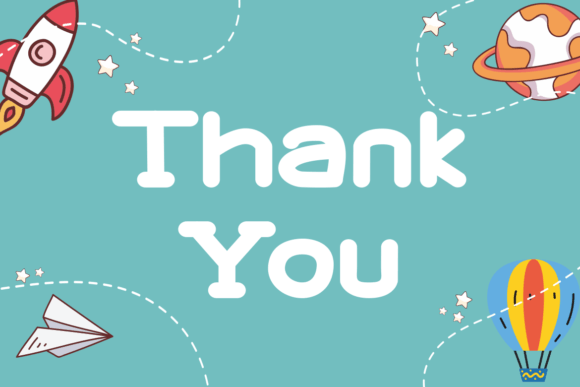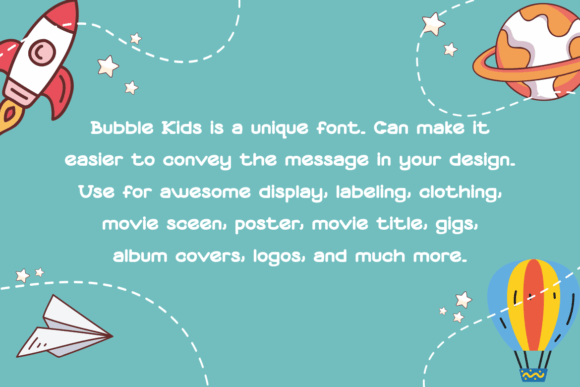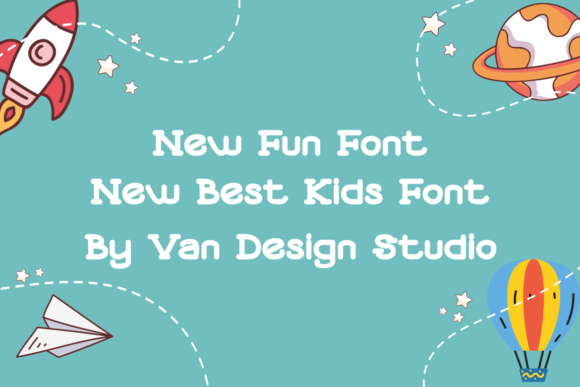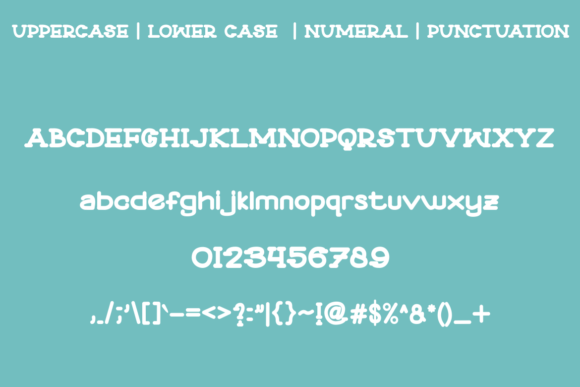
Introduction to Bubble Kids Font
Bubble Kids is a fun and friendly display font.
Bubble Kids is a fun and friendly display font. Whether you are using it for cartoon-related designs, children games, quotes, titles, brand names, book covers, posters, or just any creation that requi
Key Features of Bubble Kids Font